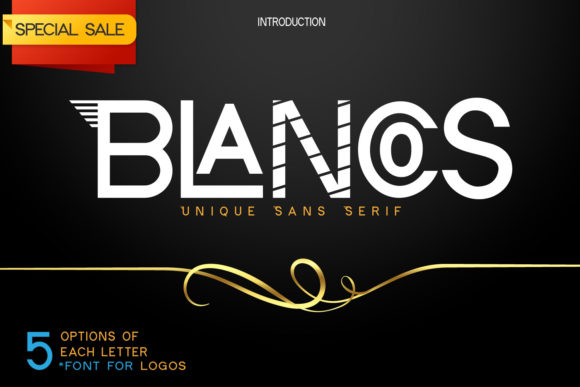
The Designer’s Dream Come True: Blanco’s Font
An Honest Review of Blanco’s Font
Blanco’s Font is indeed a cool, modern, and incredibly unique display font. It’s perfect for making a statement on any poster, flyer, or print material. Here’s what I love about it:
• ✨ Unique and eye-catching design: Blanco’s Font stands out from the crowd with its sleek and contemporary look.
• ✅ Highly versatile: It can be used for a wide range of design projects, from posters and flyers to logos and branding.
• 💥 Excellent for headlines and titles: The font’s bold and modern design makes it perfect for grabbing attention.
Of course, no font is perfect, and Blanco’s Font has a few small quirks:
• 🤔 Limited use for body text: Due to its bold and modern design, Blanco’s Font may not be the best choice for large blocks of text.
• ⚠️ Some characters may require manual kerning: As with any font, you may need to adjust the kerning for certain character combinations to achieve optimal results.
The Backstory Behind Blanco’s Font
Blanco’s Font was designed by a young and talented typographer who’s passionate about creating unique and modern fonts. Inspired by the beauty of minimalism and the power of bold typography, Blanco’s Font was born. Although the designer’s exact story is shrouded in mystery, their love for typography and design is evident in every detail of the font.
What is Blanco’s Font best used for? Blanco’s Font is perfect for display purposes, such as posters, flyers, logos, and branding.
Is Blanco’s Font suitable for body text? No, Blanco’s Font is not recommended for large blocks of text due to its bold and modern design.
Is Blanco’s Font available in different styles? Yes, Blanco’s Font comes in various styles and weights, making it versatile for different design projects.